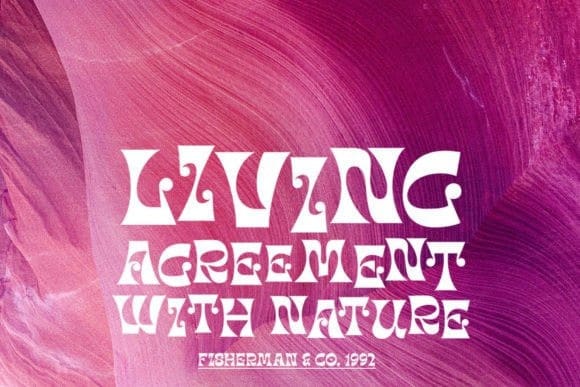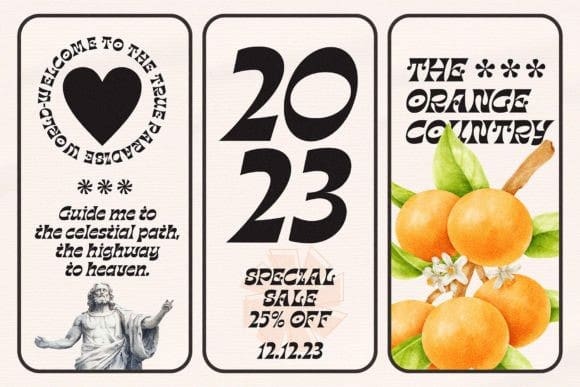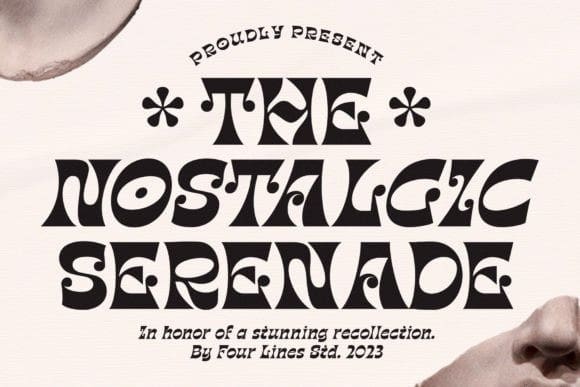
Nostalgic Serenade Font
Nostalgic Serenade Font – a harmonious blend of classic charm and modern elegance. This font captures the essence of celebration and radiating cheerfulness with a touch of vintage. Elevate your creative endeavors with this unique typeface, where every letter is a note in a symphony.